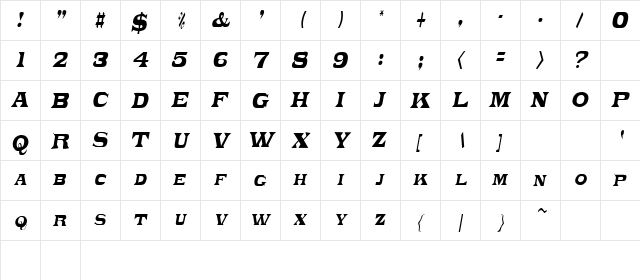
Nomen Oblique
Design Context for Nomen Typeface
Nomen offers clean, dependable letterforms without strong stylistic allegiance, making it a practical choice for designers who need flexibility. The slanted form adds forward momentum and visual energy.